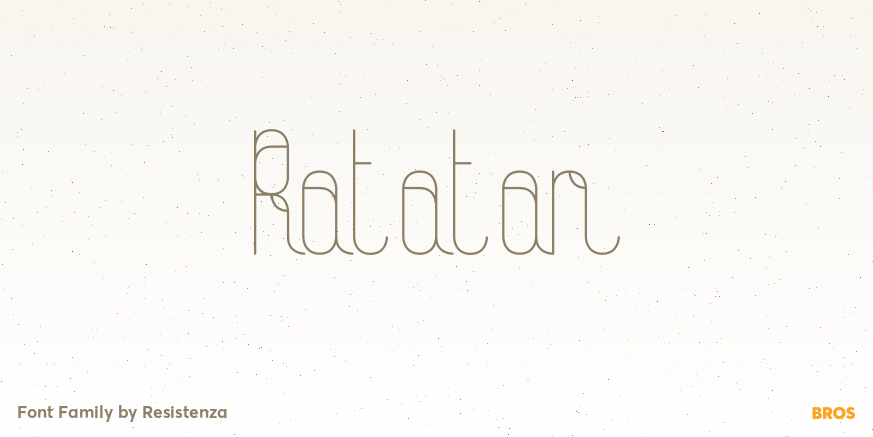
Ratatan
About Ratatan
Ratatan is an unconnected script combining elements of the traditional script and geometric sans serif styles. The result is at once novel and familiar.